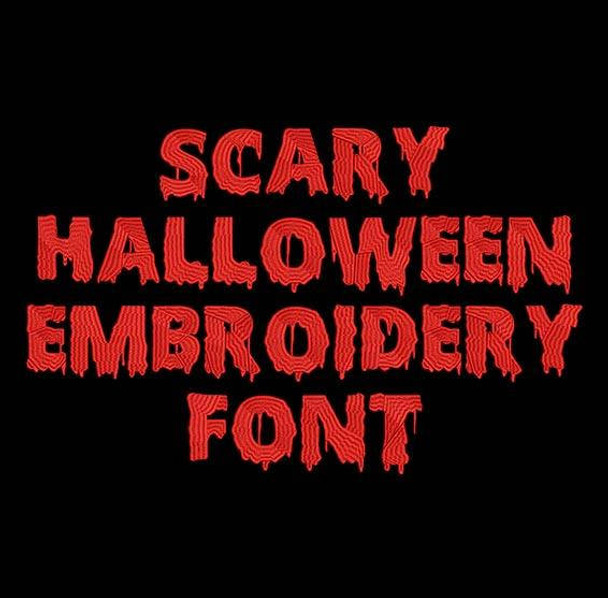
Scary Halloween Font
Title: Scary Halloween Machine Embroidery Font
This Scary Halloween font is perfect for personalizing clothes, bags, towels and linens!